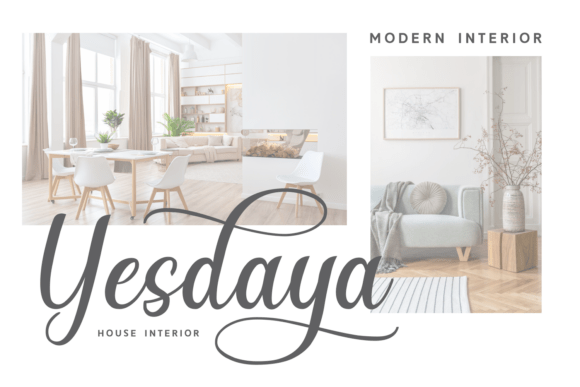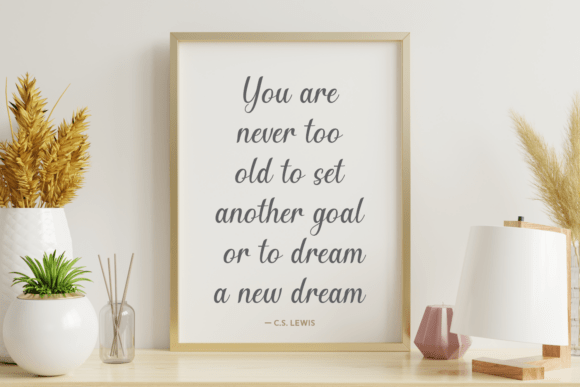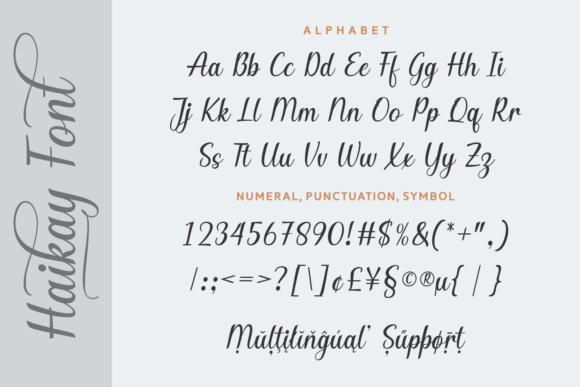
Introducing Haikay Font: Elevate Your Designs with Elegance and Sophistication
In the world of typography, few fonts manage to strike a balance between elegance, sophistication, and charm. Haikay Font is one such refined and elegant script font that has been making waves in the design community. With its clean strokes, graceful swashes, and modern calligraphy flair, Haikay is the perfect choice for designers and crafters looking to add a touch of luxury to their projects.
What Makes Haikay Font Stand Out?
Haikay Font boasts balanced letterforms that exude a sense of refinement and poise. Its clean strokes and elegant swashes make it an ideal choice for a variety of design applications, from wedding stationery and boutique branding to product packaging and minimalist logos. Whether you’re a professional designer or a crafty DIY enthusiast, Haikay Font is sure to impress.
Perfect for Wedding Stationery and Branding
Wedding planners, stationery designers, and brides-to-be, rejoice! Haikay Font is specifically designed to make your wedding stationery, such as invitations, save-the-dates, and thank-you cards, truly unforgettable. Its elegant and refined aesthetic will add a touch of sophistication to your wedding branding, making it perfect for:
- Boutique branding and packaging
- Wedding website and social media graphics
- Floral and event design
Ideal for Product Packaging and Minimalist Logos
Haikay Font is not just limited to wedding stationery and branding. Its modern calligraphy flair and balanced letterforms make it an excellent choice for product packaging, minimalist logos, and other design applications where a touch of elegance is desired. Use Haikay Font to:
- Create luxurious product packaging
- Design minimalist logos and branding materials
- Develop elegant business cards and letterheads
- Enhance your website’s typography and user experience
Why Choose Haikay Font?
So, what sets Haikay Font apart from other script fonts? Here are just a few reasons why designers and crafters love Haikay:
- Timeless sophistication: Haikay Font delivers a classic, sophisticated look that’s perfect for professional and creative projects.
- Balanced letterforms: Haikay’s elegant letterforms are carefully crafted to ensure balance and harmony in your designs.
- Modern calligraphy flair: Haikay’s modern calligraphy style adds a touch of charm and flourish to your designs.
- Clean strokes and swashes: Haikay’s clean strokes and elegant swashes make it perfect for a variety of design applications.
Tips for Using Haikay Font Effectively
To get the most out of Haikay Font, here are a few tips to keep in mind:
- Pair with complementary fonts: Combine Haikay Font with complementary fonts to create visual interest and hierarchy in your designs.
- Experiment with swashes: Haikay’s elegant swashes can add a touch of elegance to your designs. Experiment with different swash styles to find the perfect look.
- Use for headlines and titles: Haikay Font is perfect for headlines, titles, and other display text. Use it to add a touch of sophistication to your designs.
In conclusion, Haikay Font is a refined and elegant script font that’s perfect for designers and crafters looking to add a touch of luxury to their projects. With its clean strokes, graceful swashes, and modern calligraphy flair, Haikay delivers timeless sophistication with just the right touch of charm and flourish. Whether you’re designing wedding stationery, boutique branding, product packaging, or minimalist logos, Haikay Font is the perfect choice.